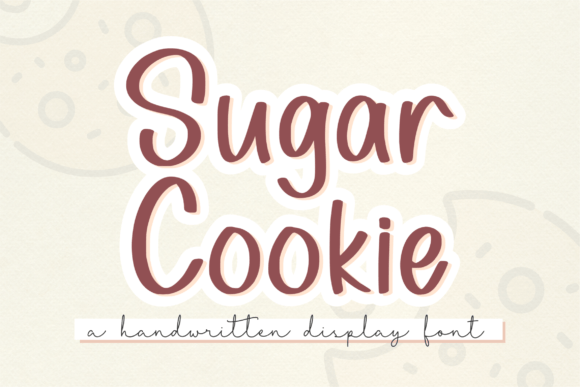
Embark on a delightful typographical journey with Sugar Cookie Font, an enchanting display font crafted with meticulous detail by qwrtypefoundry. Indulge in its playfully handmade charm and let your imagination soar as you explore the boundless possibilities of this captivating creation. Whether you're a seasoned designer or just starting out, Sugar Cookie Font is poised to become your trusty companion, adding a touch of whimsy and wonder to every project you touch.
Unleash your creativity and let Sugar Cookie Font take center stage in your designs. Its playful nature makes it the perfect choice for adding a personal touch to invitations, greeting cards, social media posts, and any project that calls for a dash of handwritten flair. Let your words dance and come alive with Sugar Cookie Font's charming imperfections and celebrate the beauty of the handmade.
Dive into a world of endless possibilities with Sugar Cookie Font, a versatile display font that's equally at home in logos, branding, packaging, and web design. Its playful energy is sure to capture attention and leave a lasting impression on your audience. Let Sugar Cookie Font be your secret weapon to create designs that stand out from the crowd and make a statement.